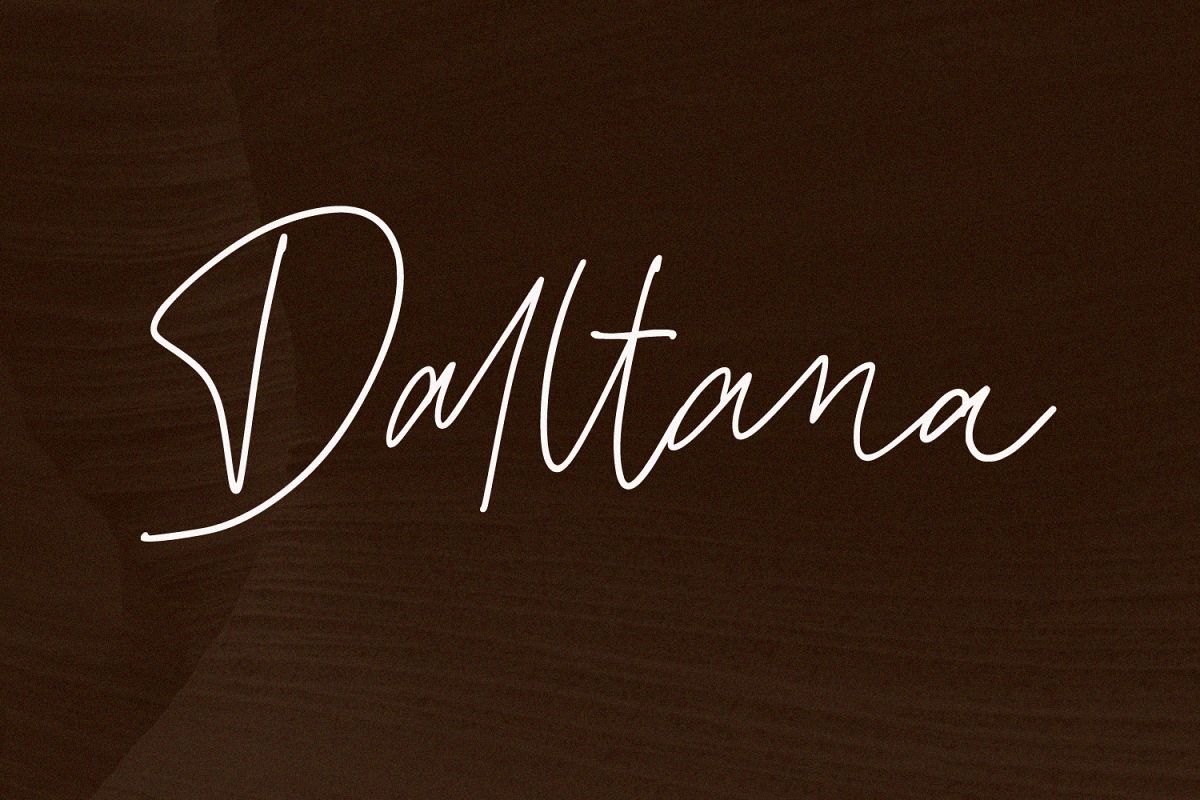
Daltana Handwriting Font
Daltana
Daltana Font with natural handwriting style perfect for many
different projects such as logos & branding, invitation, stationery,
wedding designs, social media posts, advertisements, product packaging, poster,
product designs, label, photography, watermark, special events or anything,
quotes, fashion, etc.